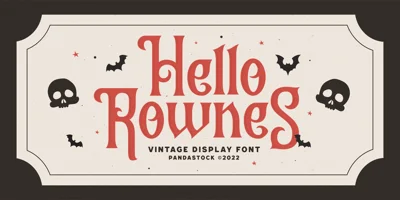
Hello Rownes Font
Hello Rownes Font is ideal for friendly design projects including welcoming hospitality brands, greeting card companies, customer service organizations, friendly retail establishments, warm community centers, social networking platforms, cheerful lifestyle brands, and approachable communication campaigns. This inviting typeface works perfectly for welcome centers, friendly cafes, community outreach programs, social greeting applications, and projects that celebrate the power of warm greetings and human connection in building positive relationships.
What makes Hello Rownes Font exciting is its welcoming friendly character that perfectly captures the essence of warm greetings and social connection. The font features approachable letterforms with friendly curves that reflect the natural warmth and genuine hospitality found in positive human interactions. Its welcoming design elements embody the spirit of social warmth and community friendship, making it perfect for projects that need to convey friendliness, approachability, and connection to social culture. The carefully crafted friendly proportions create an atmosphere of social sophistication and welcoming authenticity.
Hello Rownes Font comes in multiple family variations including friendly, welcoming, social, and approachable styles. Each weight maintains the distinctive greeting character while offering different levels of friendly intensity and welcoming presence. The font family includes social alternates, friendly ligatures, and welcoming variations that provide designers with comprehensive options for creating truly warm and authentically friendly typographic compositions that celebrate social excellence.
Whether you're designing hospitality branding, creating friendly marketing materials, or developing welcoming promotional graphics, Hello Rownes Font provides the perfect typographic foundation for projects that celebrate social excellence and friendly sophistication. This remarkable typeface transforms ordinary text into compelling expressions of social wisdom and welcoming energy. Download this friendly font today and greet your design projects with the social authenticity and warm charm that captures the essential spirit of human connection and friendly communication.